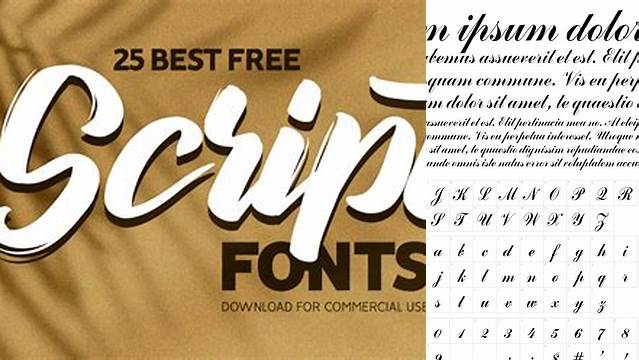
Commercial Script CE Font: Free Download & Guide
Looking for the perfect font to add a touch of elegance and personality to your commercial projects? Look no further! In this comprehensive guide, we'll delve into the world of Commercial Script CE font, a beautiful typeface that's available for free download. We'll explore its features, discuss its ideal use cases, and provide you with everything you need to know to incorporate it seamlessly into your designs. So, buckle up, designers and creators, let's dive in!
What is Commercial Script CE Font?
Commercial Script CE is a beautifully crafted script font that exudes sophistication and charm. It falls under the category of calligraphy fonts, characterized by its flowing strokes, elegant curves, and handwritten aesthetic. Unlike some rigid or overly stylized fonts, Commercial Script CE strikes a perfect balance between readability and visual appeal, making it a versatile choice for various design projects. This font is designed to mimic the natural flow of handwriting, adding a personal and human touch to any text it graces. Its elegant flourishes and carefully crafted letterforms make it ideal for projects that require a touch of class and refinement. From invitations and greeting cards to logos and branding materials, Commercial Script CE can elevate your designs and help you create a lasting impression. The "CE" in its name often indicates that it includes a more comprehensive character set, supporting Central European languages and offering a wider range of glyphs for diverse typographic needs. This makes it a practical choice for projects targeting international audiences or requiring specific diacritical marks.
Key Features of Commercial Script CE Font
Before you rush to download and install Commercial Script CE font, let's take a closer look at what makes it so special. Understanding its key features will help you appreciate its design and make informed decisions about where and how to use it.
- Elegant and Flowing Design: The most striking feature of Commercial Script CE is its elegant and flowing design. The strokes are carefully crafted to mimic the natural rhythm of handwriting, creating a sense of movement and grace. This makes it particularly well-suited for projects that require a touch of sophistication and artistry.
- Readability: While some script fonts can be difficult to read, Commercial Script CE strikes a good balance between aesthetics and legibility. The letterforms are clear and well-defined, ensuring that your text remains easy to read, even at smaller sizes. This is a crucial consideration for commercial projects, where clarity and communication are paramount.
- Versatility: Commercial Script CE is surprisingly versatile, lending itself well to a variety of design applications. From formal invitations and wedding stationery to branding materials and website headers, this font can adapt to different styles and contexts. Its adaptability makes it a valuable asset in any designer's toolkit.
- Extensive Character Set (CE): The "CE" designation indicates that this font includes a more comprehensive character set, supporting Central European languages and offering a wider range of glyphs. This is particularly important for projects that require specific diacritical marks or that target international audiences. The expanded character set ensures that your text will render correctly in multiple languages, avoiding any potential typographic errors.
Ideal Use Cases for Commercial Script CE Font
Now that you know what Commercial Script CE font is and what its key features are, let's explore some of its ideal use cases. This will give you a better understanding of how to leverage this font to its full potential and create stunning designs.
- Wedding Invitations and Stationery: Commercial Script CE is a natural choice for wedding invitations and other stationery. Its elegant and romantic aesthetic perfectly complements the celebratory nature of weddings, adding a touch of sophistication and charm to your designs. Use it for the names of the bride and groom, the date and time of the ceremony, or any other important details.
- Logos and Branding: If you're looking to create a logo or branding materials that exude elegance and sophistication, Commercial Script CE is an excellent option. Its flowing design and handwritten aesthetic can help you create a unique and memorable brand identity. Consider using it for your company name, tagline, or any other key branding elements.
- Greeting Cards and Invitations: Commercial Script CE is also well-suited for greeting cards and invitations for other special occasions, such as birthdays, anniversaries, and holidays. Its elegant and personal touch can help you create a warm and inviting atmosphere, making your recipients feel special and appreciated. Use it for the main message, the recipient's name, or any other personal touches.
- Website Headers and Titles: To add a touch of elegance and personality to your website, consider using Commercial Script CE for your headers and titles. Its flowing design can help you capture your visitors' attention and create a visually appealing experience. Be sure to use it sparingly and in conjunction with a more readable body font to ensure optimal readability.
Commercial Script CE font is a beautiful and versatile typeface that can add a touch of elegance and personality to your commercial projects. With its flowing design, good readability, and free availability, it's an excellent choice for designers and businesses of all sizes. By following the tips and guidelines outlined in this guide, you can effectively incorporate Commercial Script CE font into your designs and create stunning visuals that capture your audience's attention. So go ahead, download Commercial Script CE font today and start creating amazing designs!